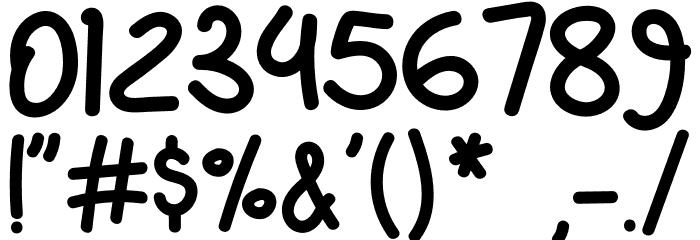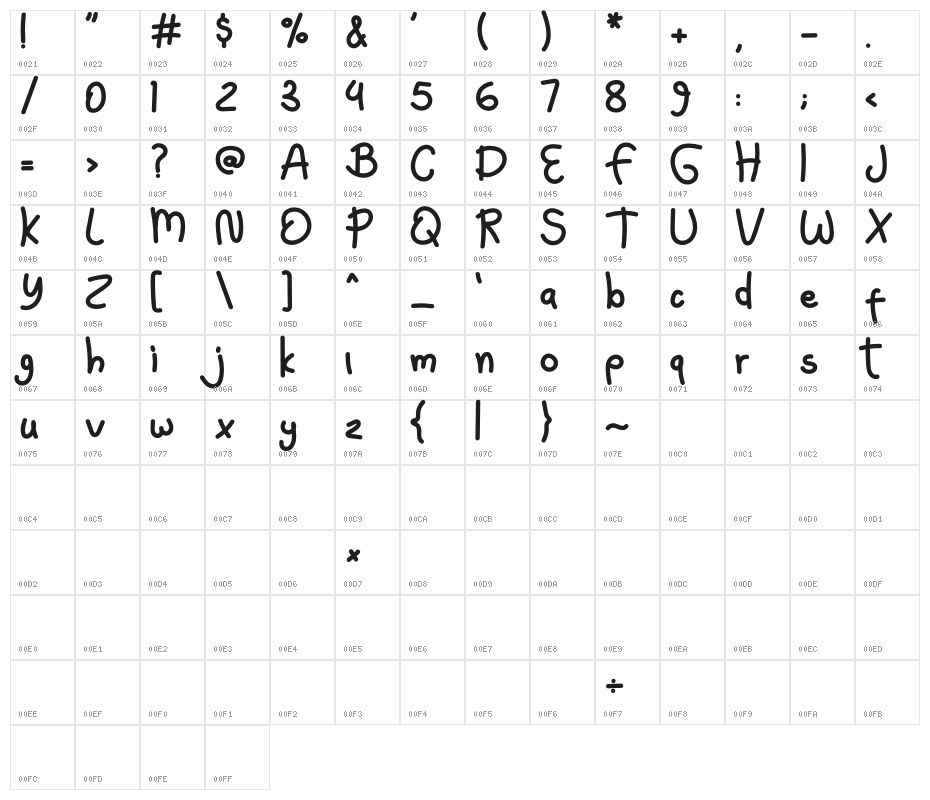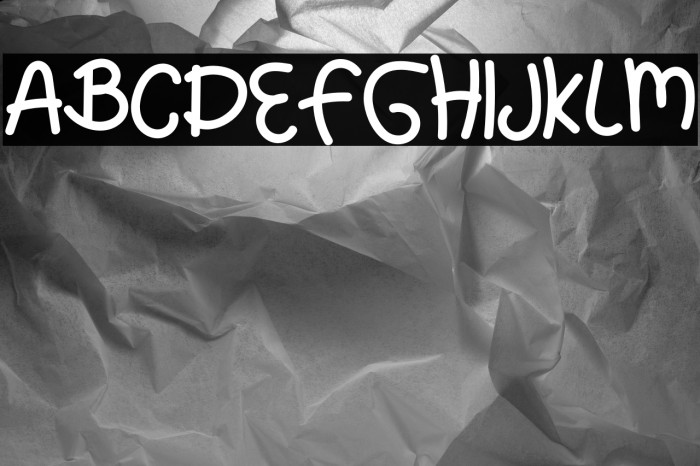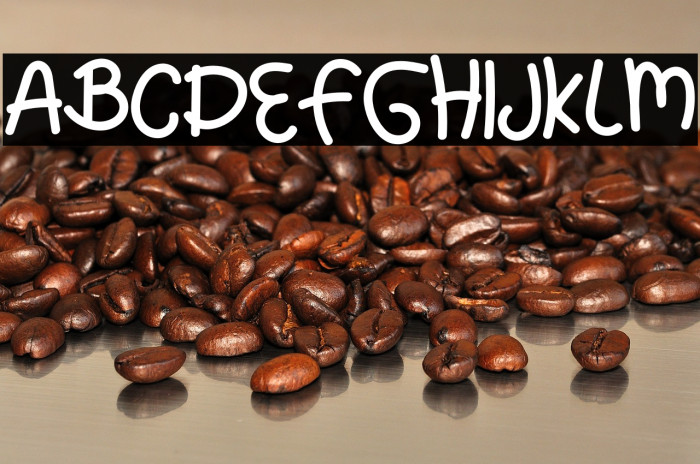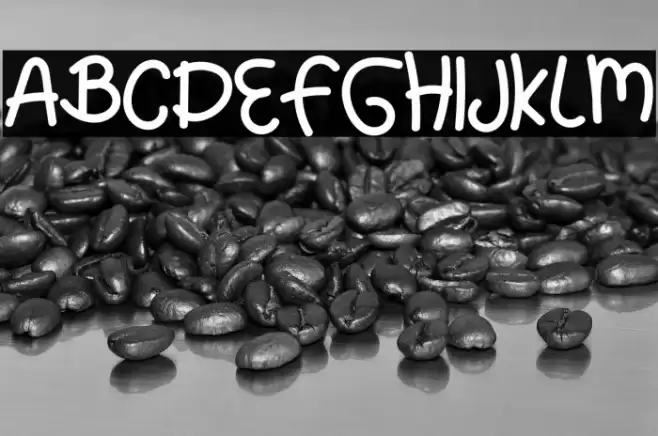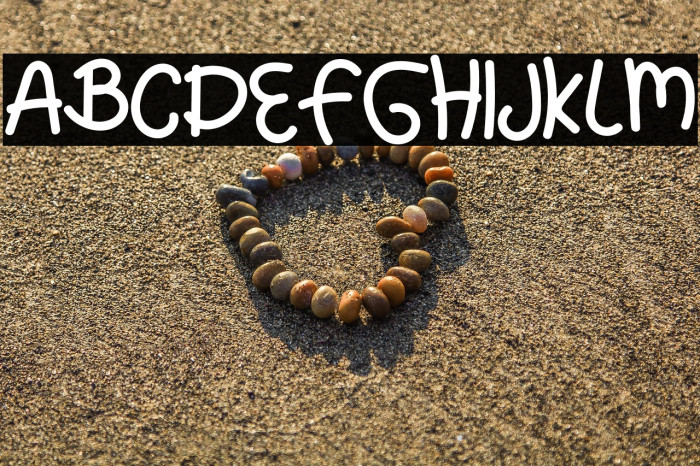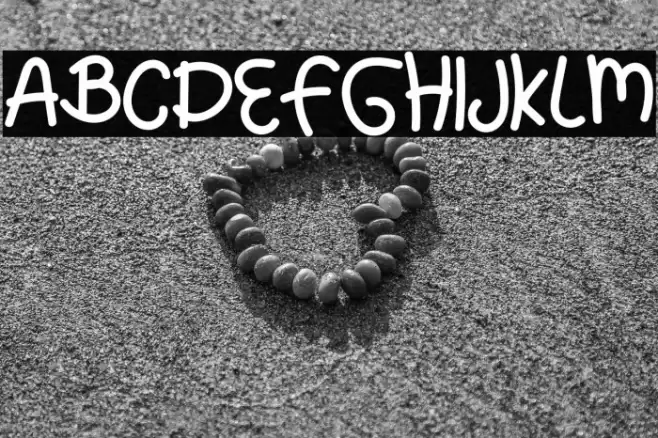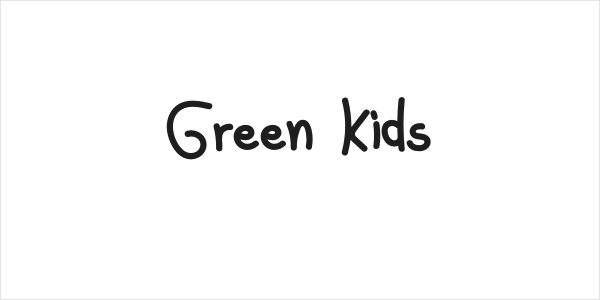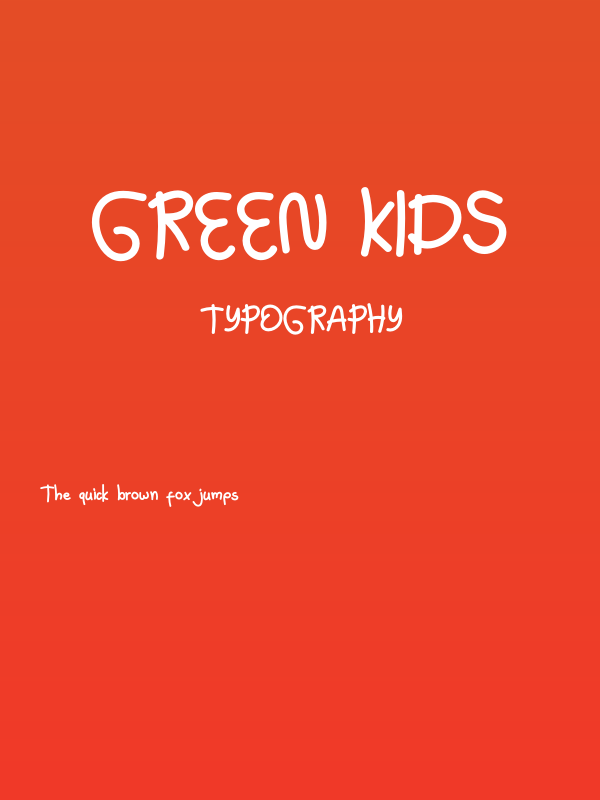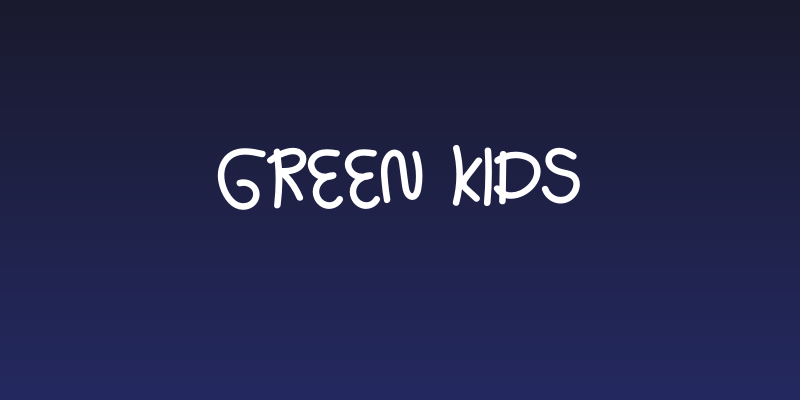
Green Kids Font
Green Kids Description
This playful and whimsical font features rounded, bubbly characters that convey a sense of fun and creativity. The letters are slightly irregular, giving them a hand-drawn appearance that adds to their charm. The uppercase and lowercase letters maintain a consistent style, with a smooth flow and rounded edges. The numbers and special characters are equally playful, making this font ideal for projects that require a lighthearted and youthful touch. Its informal style is perfect for children's books, educational materials, or any design that aims to capture a sense of joy and imagination.
| Proposed Projects | Ideal for children's books, educational materials, playful branding, and creative posters. |